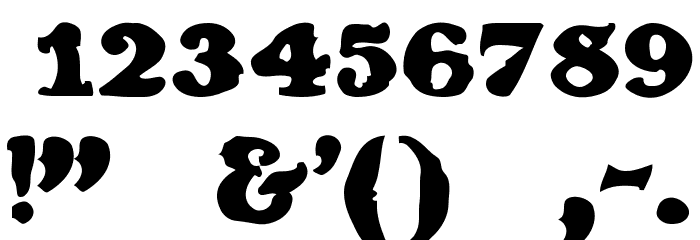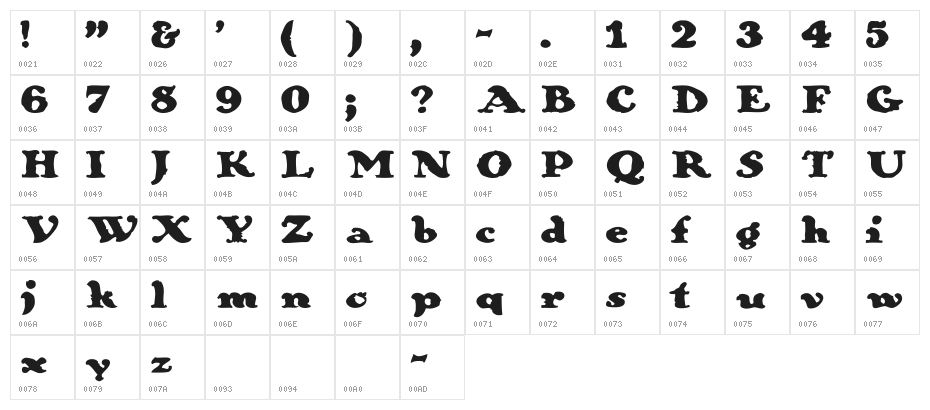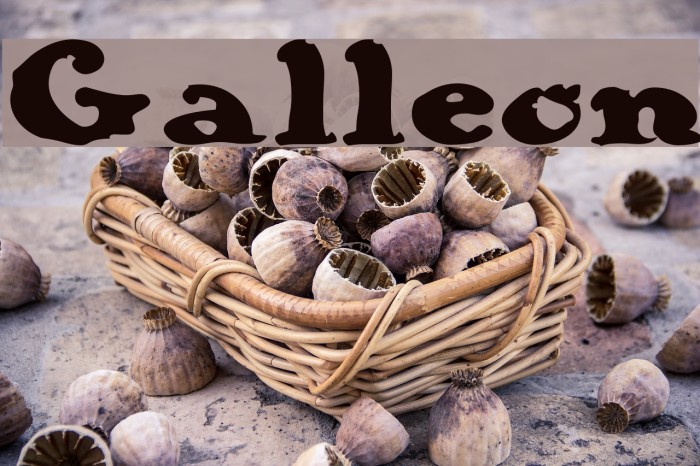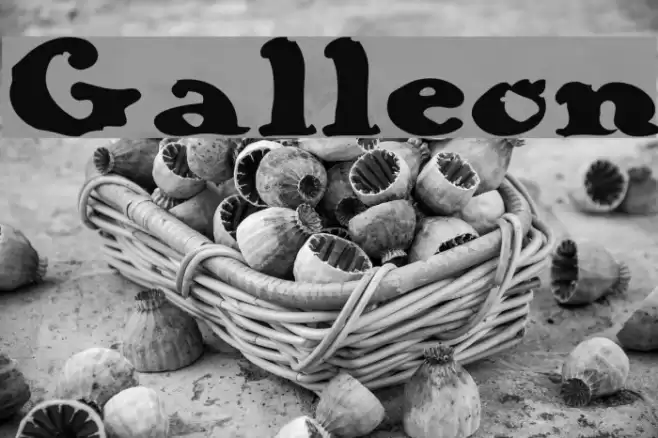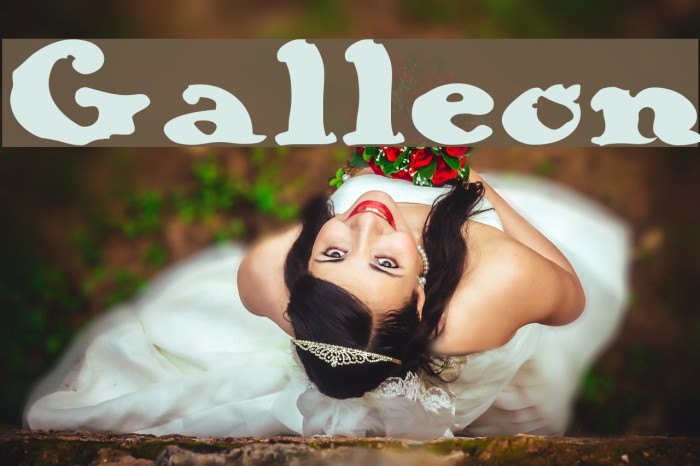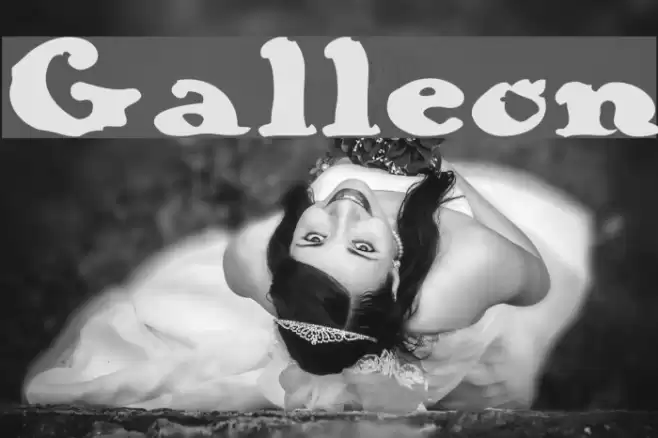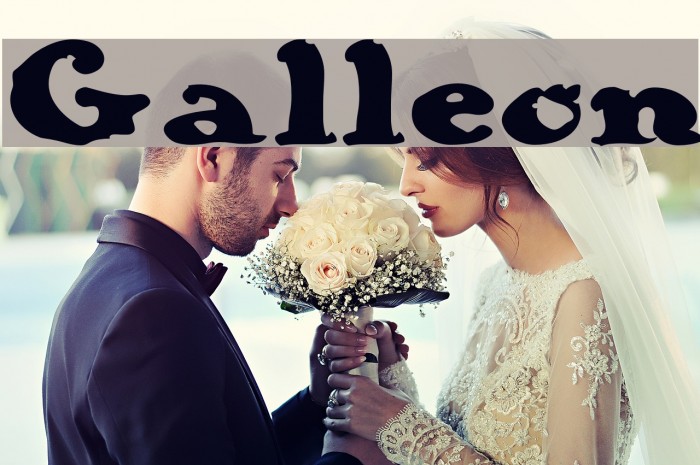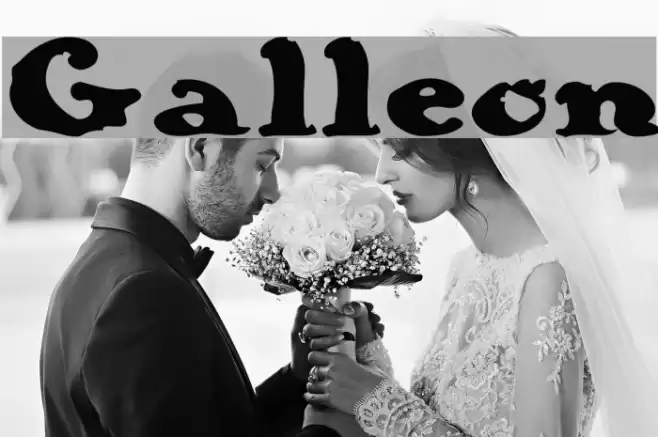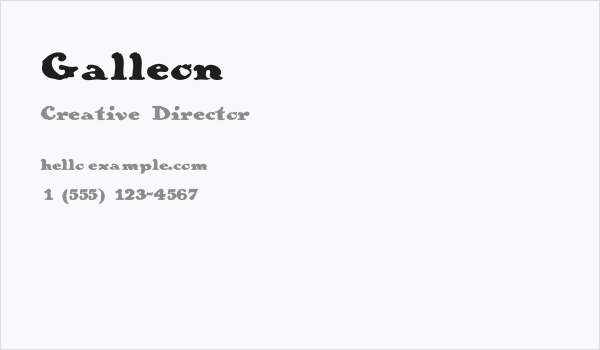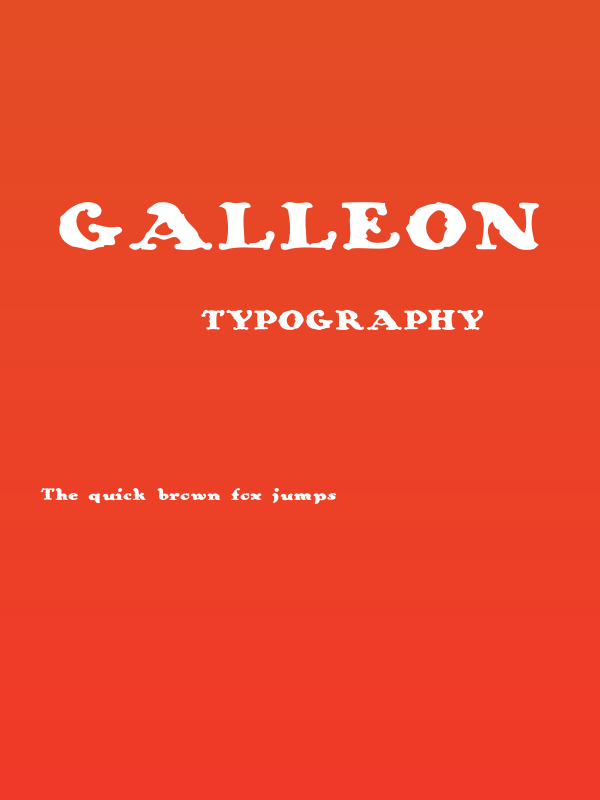
Galleon Font
Galleon Description
This font features a bold and dramatic style with thick, heavy strokes and a distinct vintage flair. The characters have a slightly irregular and rugged appearance, reminiscent of old-world printing techniques. The uppercase letters are particularly striking, with ornate serifs and a strong presence. Lowercase letters maintain the same boldness, ensuring consistency across the typeface. Numbers and special characters are equally robust, making them stand out in any design. The overall aesthetic is both decorative and impactful, suitable for creating a sense of history and tradition.
Overall StyleVintage
Proposed ProjectsIdeal for branding, poster design, book covers, and any project requiring a vintage or historical touch.